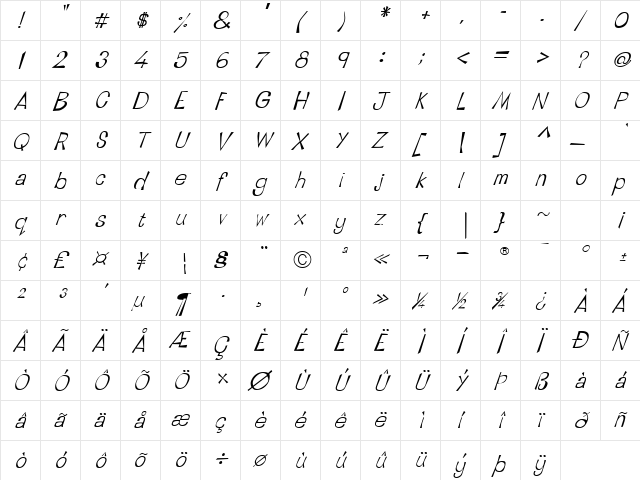
LTTapeside Regular Oblique
Design Context for LTTapeside Regular Typeface
LTTapeside Regular takes a measured approach to typography — its balanced proportions and neutral character make it a reliable workhorse for both digital and print work. The dynamic lean of this cut emphasises speed and emphasis in any layout.
Pro Tip: Try LTTapeside Regular for annotation and caption copy alongside an upright companion — the contrast in angle creates a dynamic but ordered typographic system.